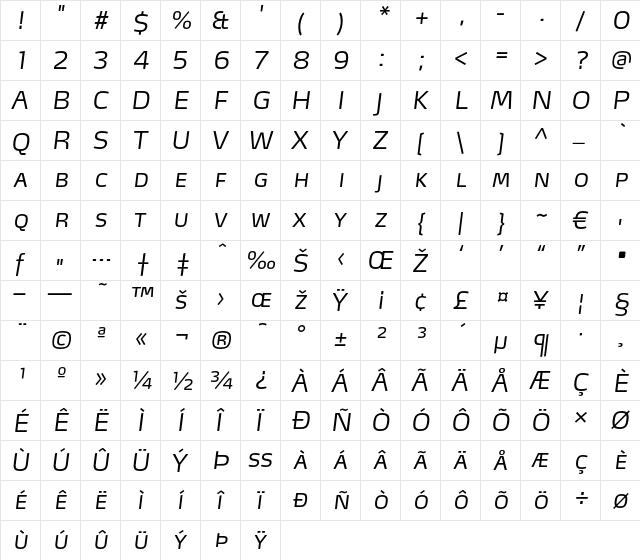
MaxLF-LightItalicSC Regular
Design Context for MaxLF-LightItalicSC Typeface
MaxLF-LightItalicSC is a composed and adaptable typeface that performs quietly and consistently across a wide range of design contexts. The dynamic lean of this cut emphasises speed and emphasis in any layout. Its slender proportions lend an understated elegance to any composition.
Pro Tip: Use MaxLF-LightItalicSC for emphasis, pull quotes, and subheadings where its slanted energy can add rhythm to the layout.